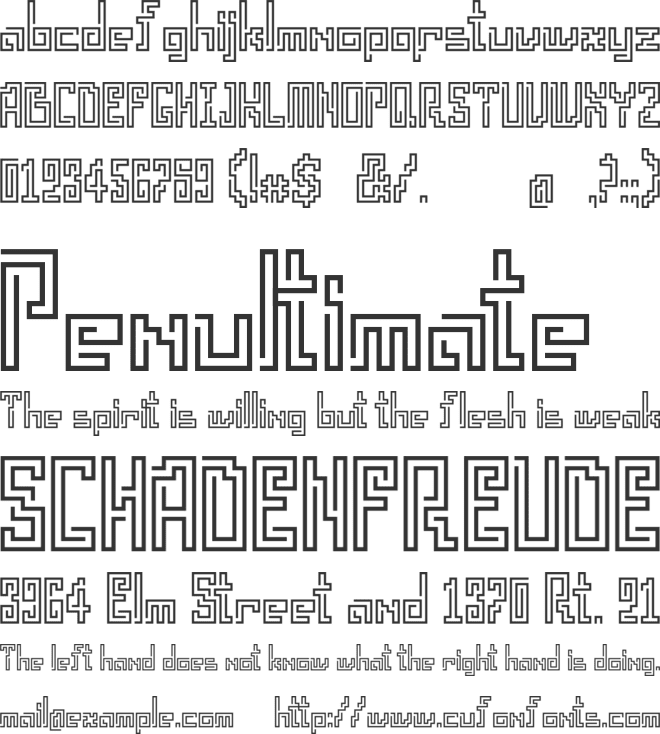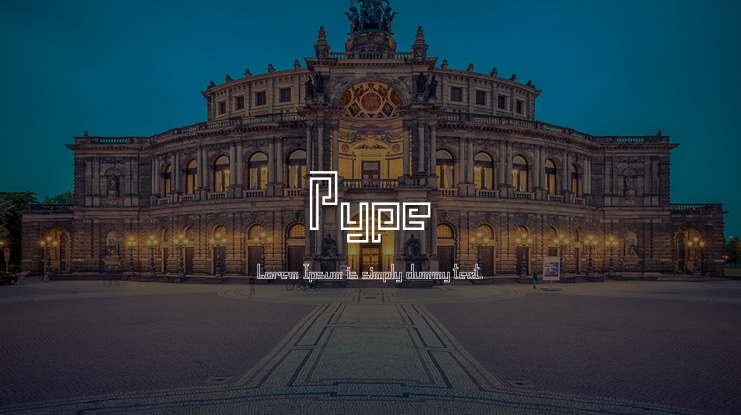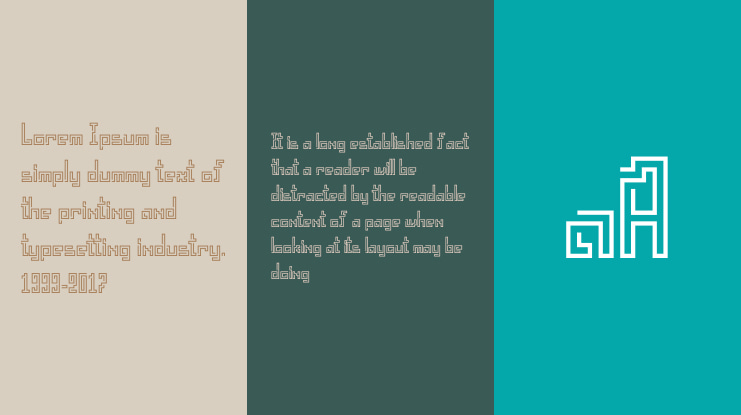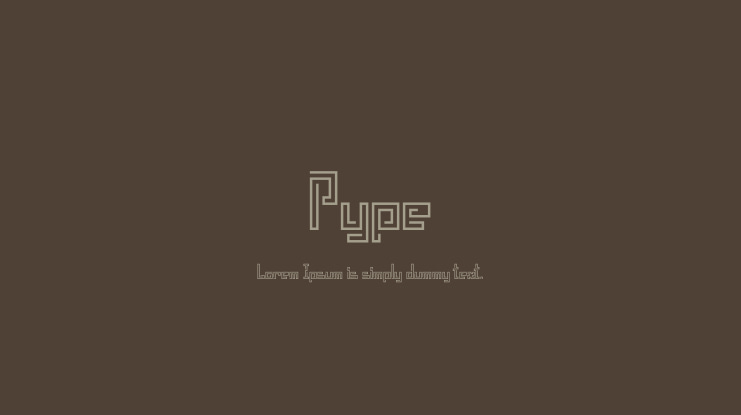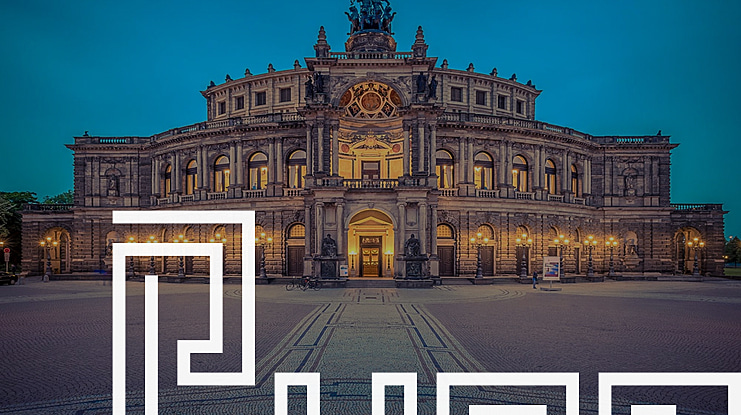
Pype Font Family
Pype is a variable typeface designed for headlines.
Great for branding, magazine covers, billboards, poster, etc.
It includes 9 weights: -Thin -Extralight -Light -Regular -Medium -Semibold -Bold -Extrabold -Heavy